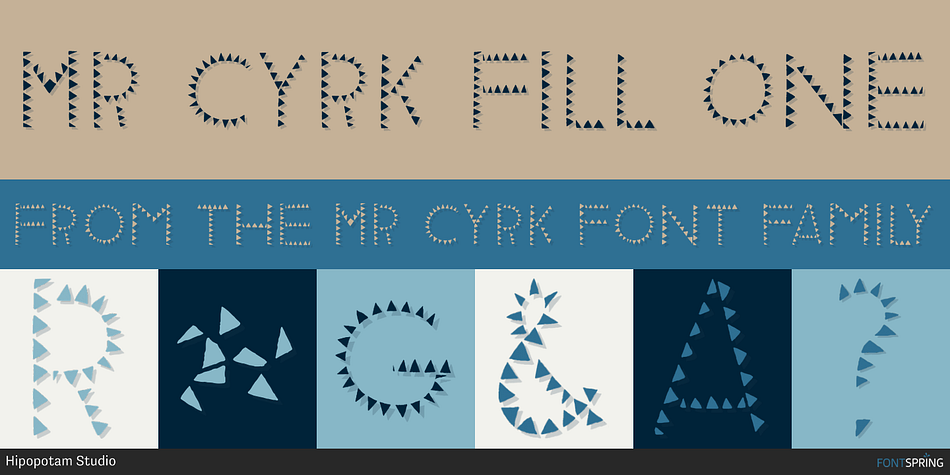
Mr Cyrk Fill One
Mr Cyrk is a display sans font family. This typeface has six styles and was published by Hipopotam Studio.
Hand drawn typeface designed for one of our books.
Hand drawn typeface designed for one of our books. You can layer different styles over the background style to achieve lots of colorful effects. Use just one style to get a single color letter or set the Fill One and Fill Two styles over the background style to get a full, three color mode.
Mr Cyrk has only uppercase characters with alternate glyphs in place of lowercase letters.